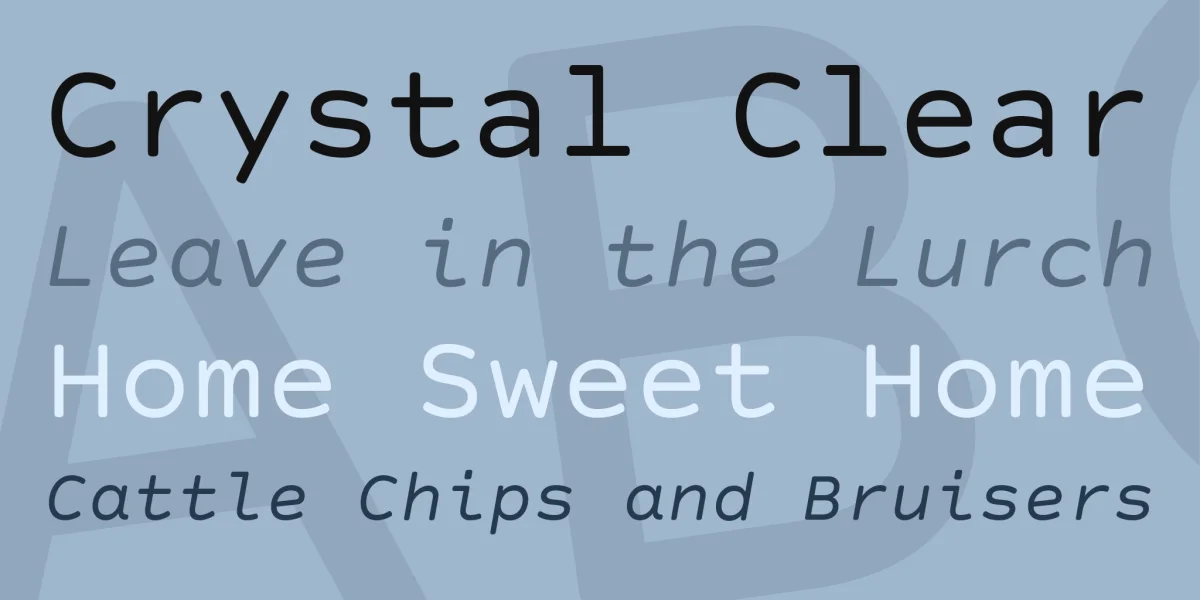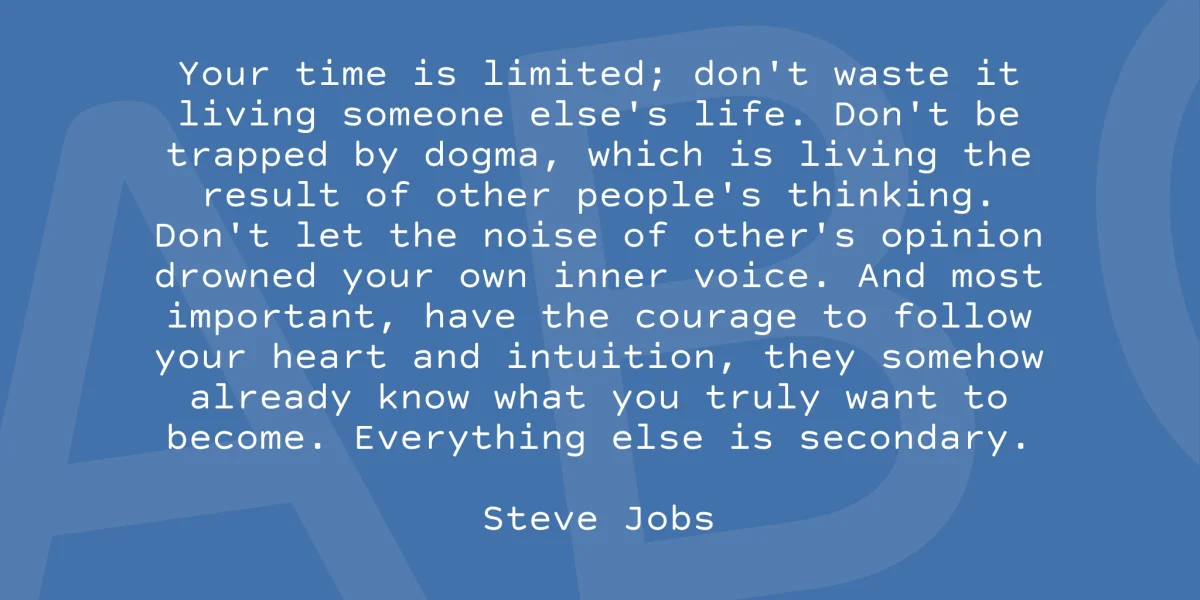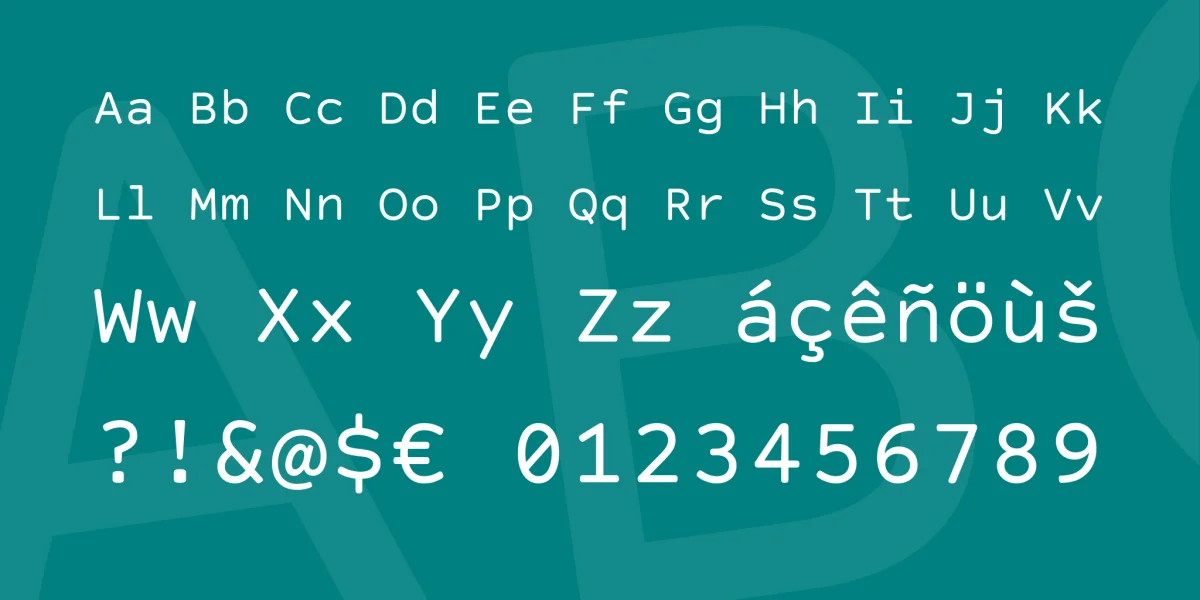
Since the beginning, screenplays have been written in Courier. Its uniformity allows filmmakers to make handy comparisons and estimates, such as 1 page = 1 minute of screen time.
But there’s no reason Courier has to look terrible. We set out to make the best damn Courier ever.
We call it Courier Prime.
Courier Prime Code, code-optimized Sans for programmers.